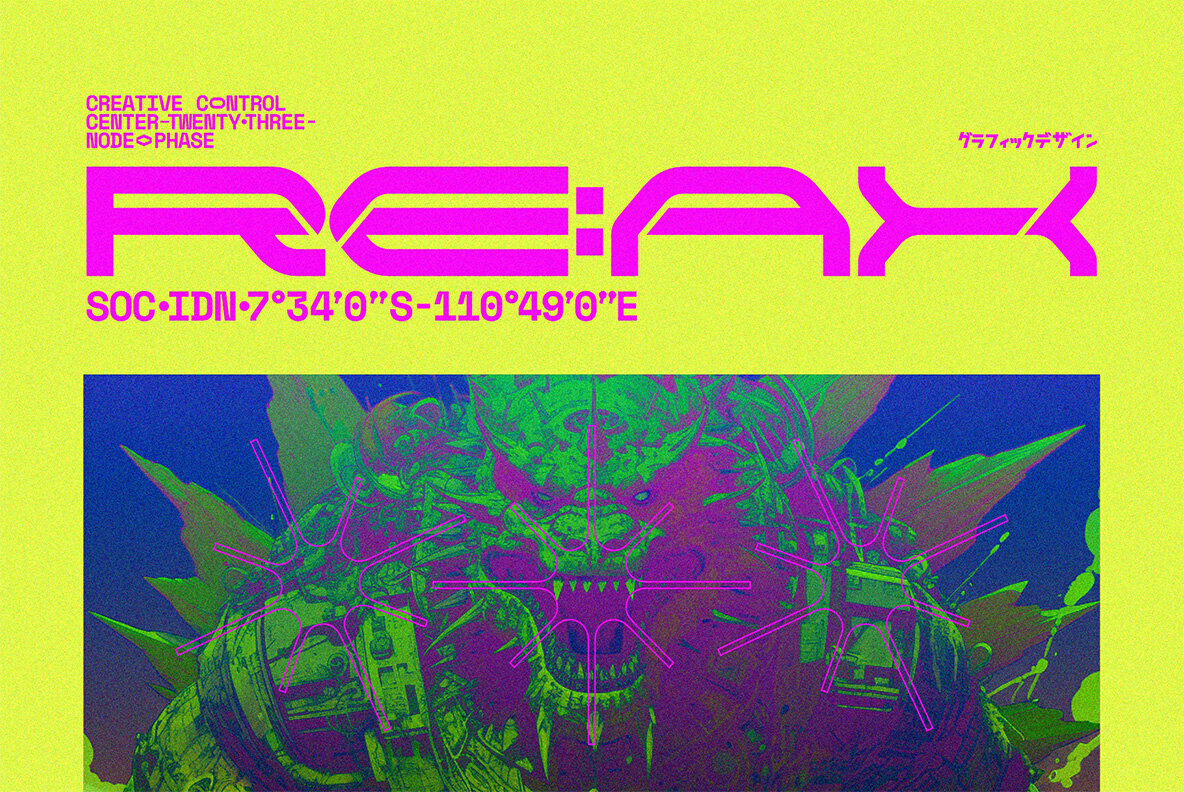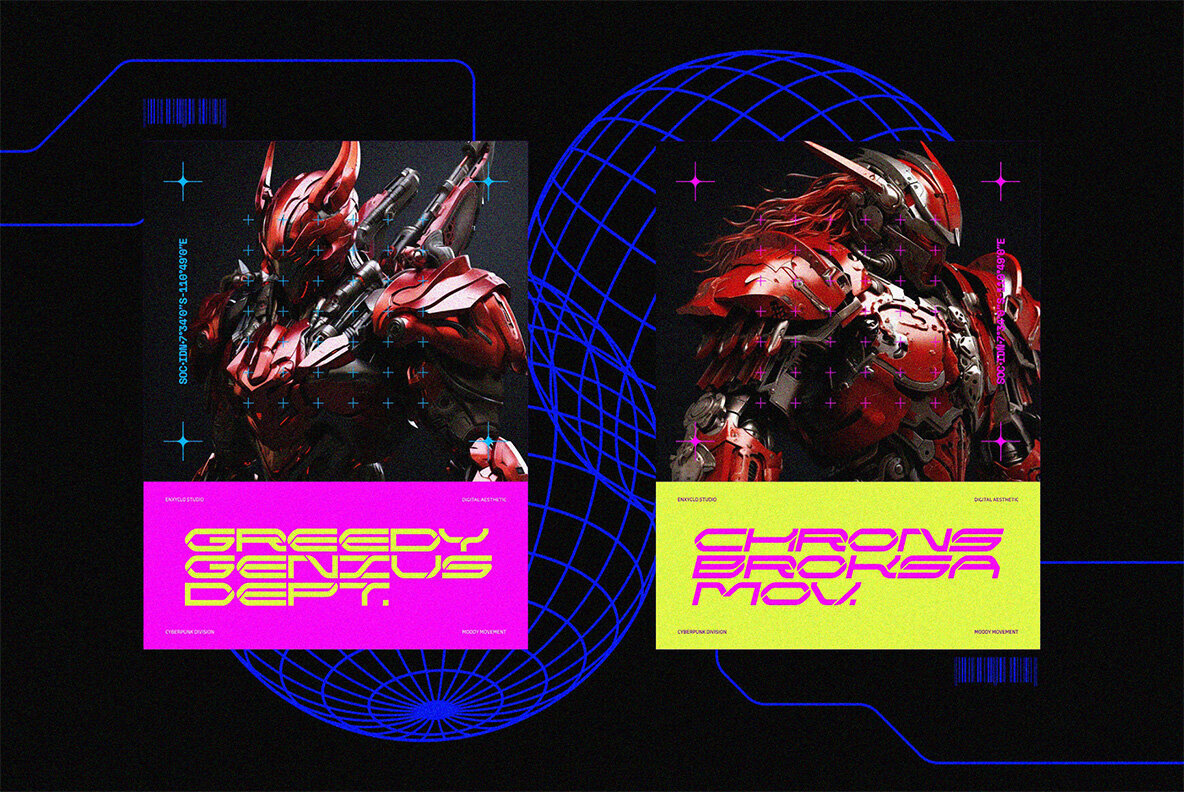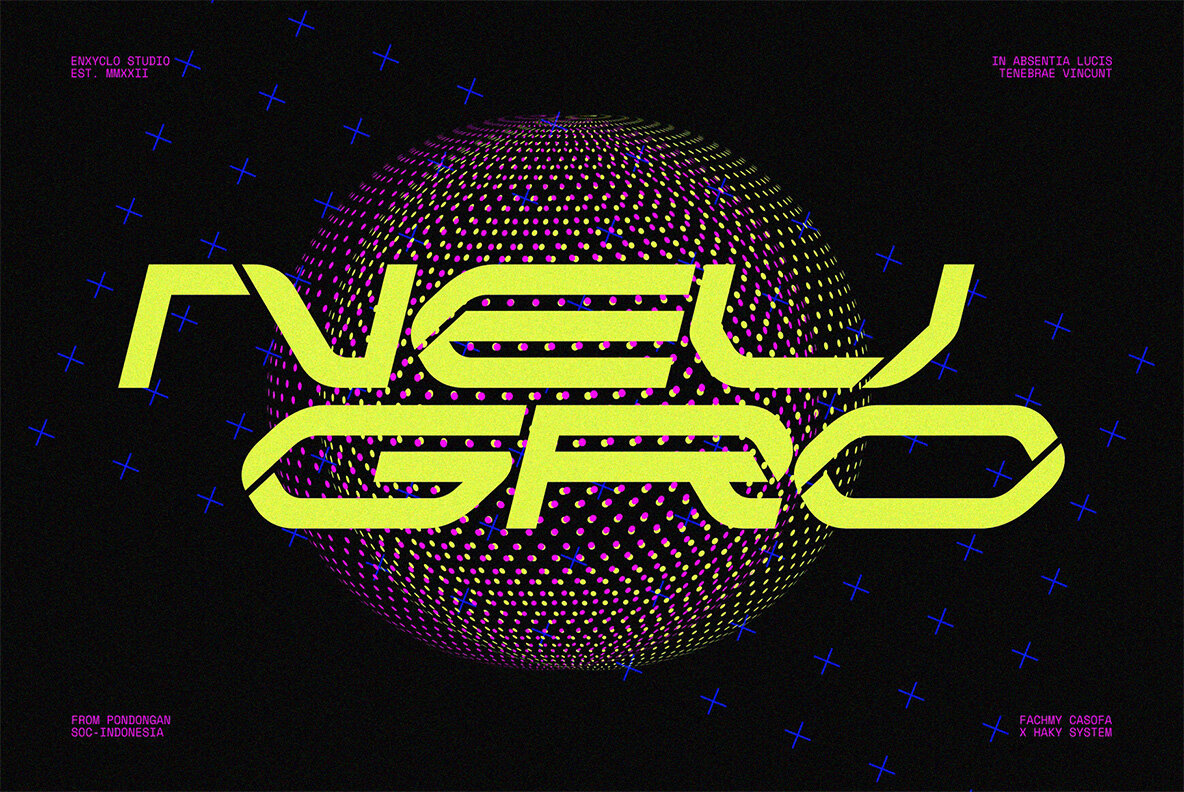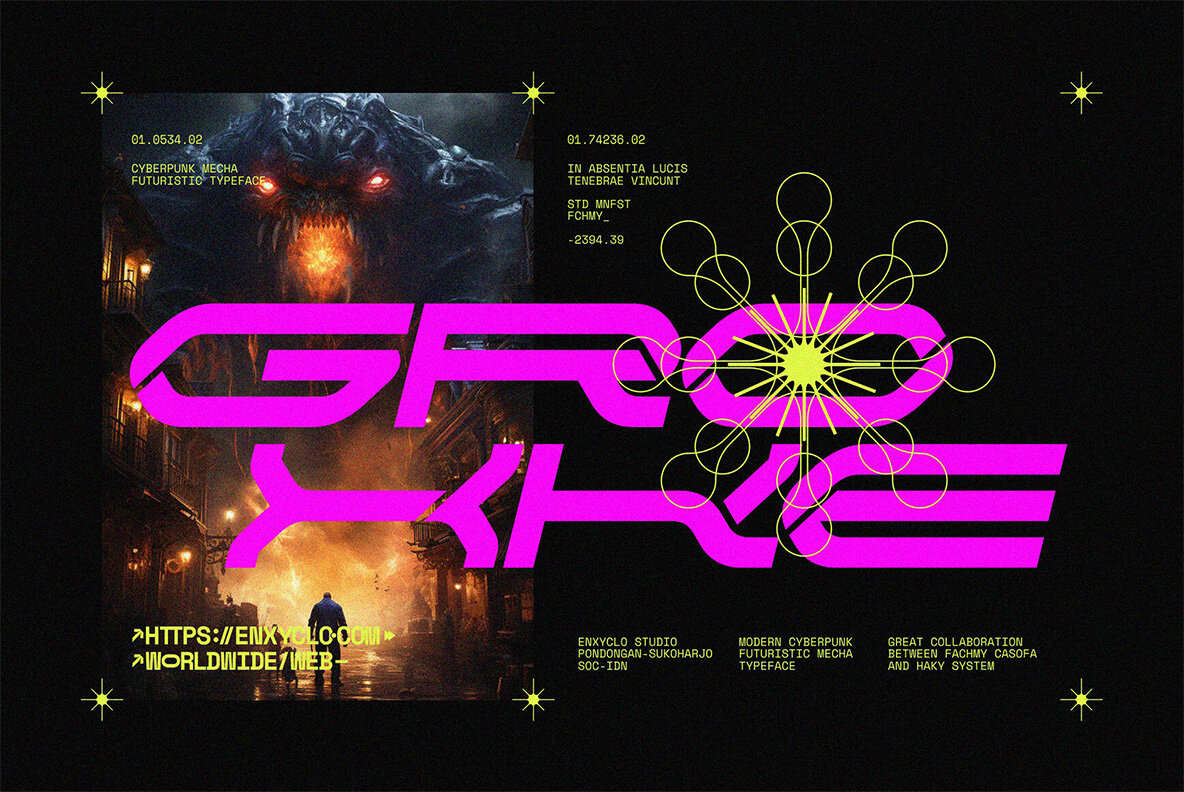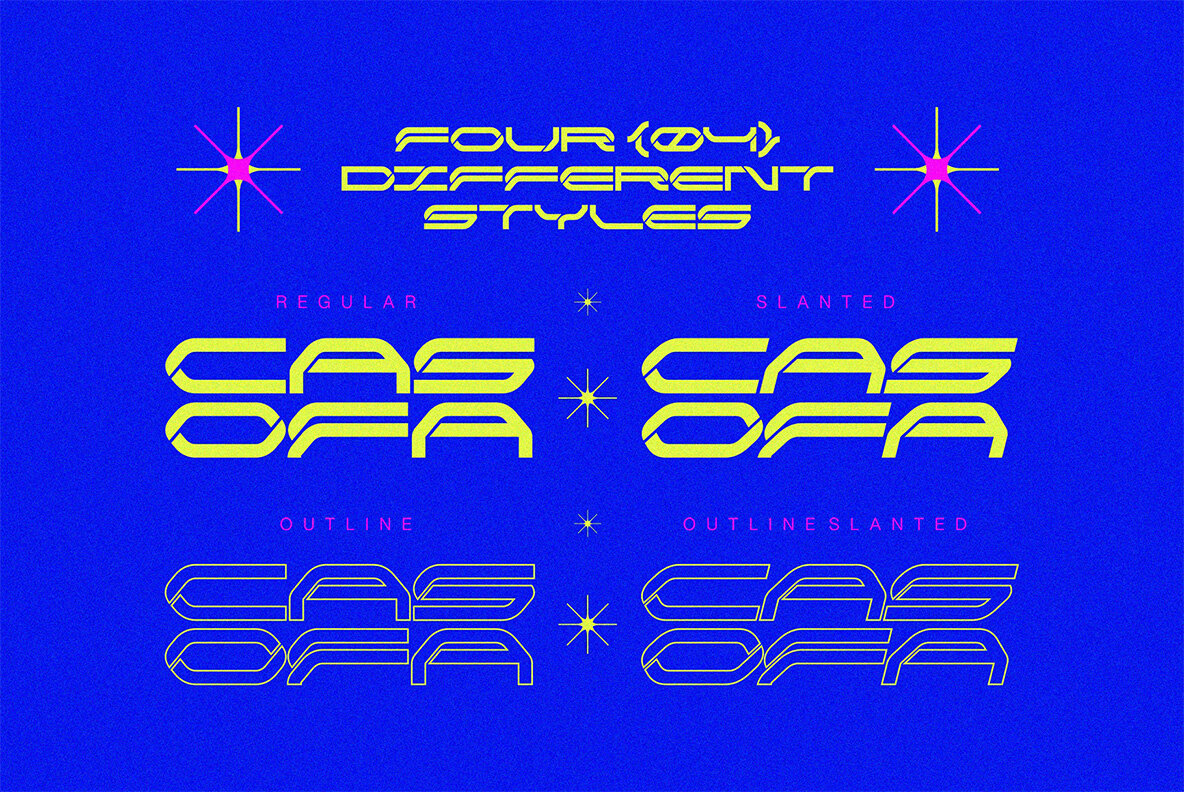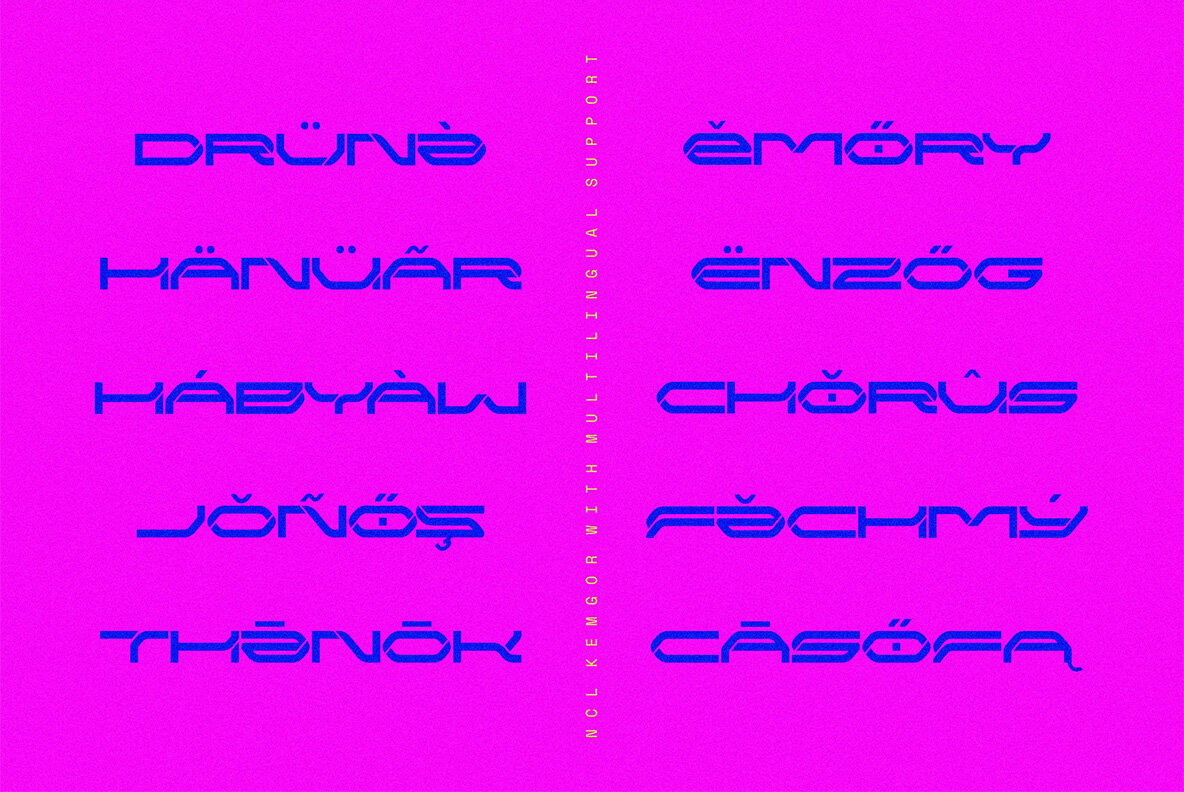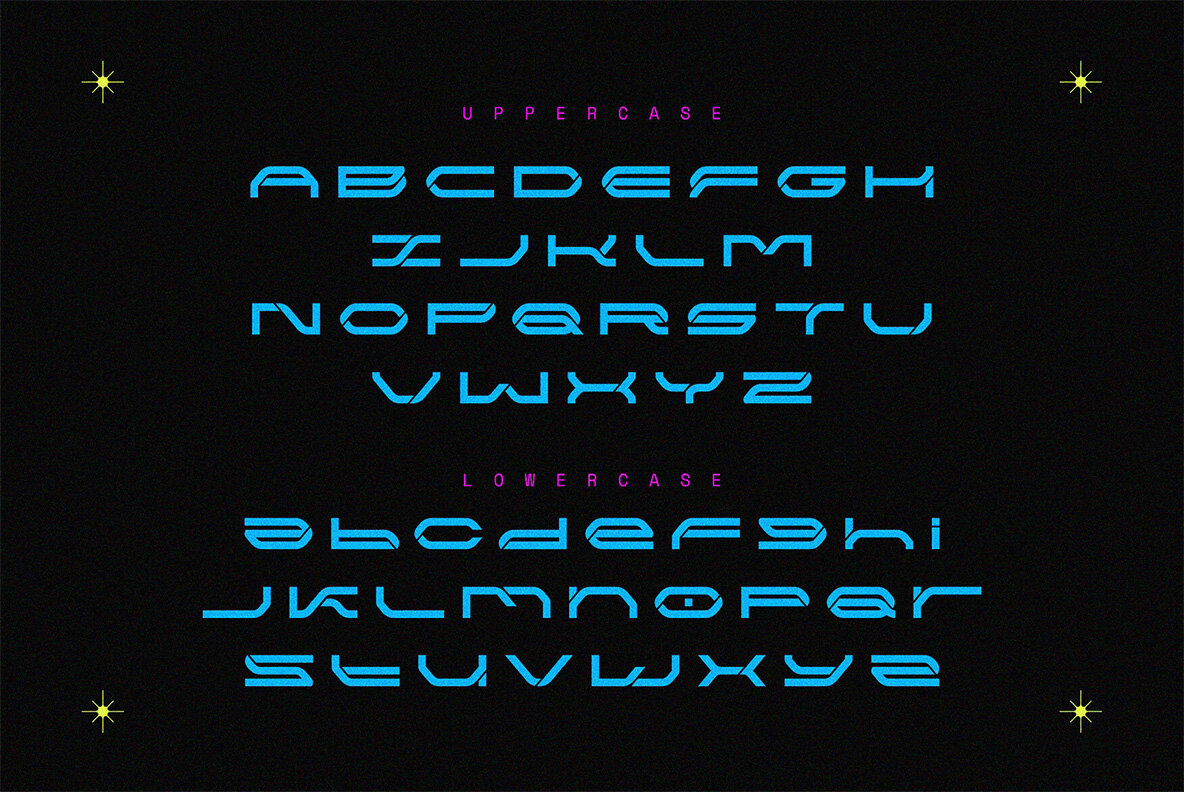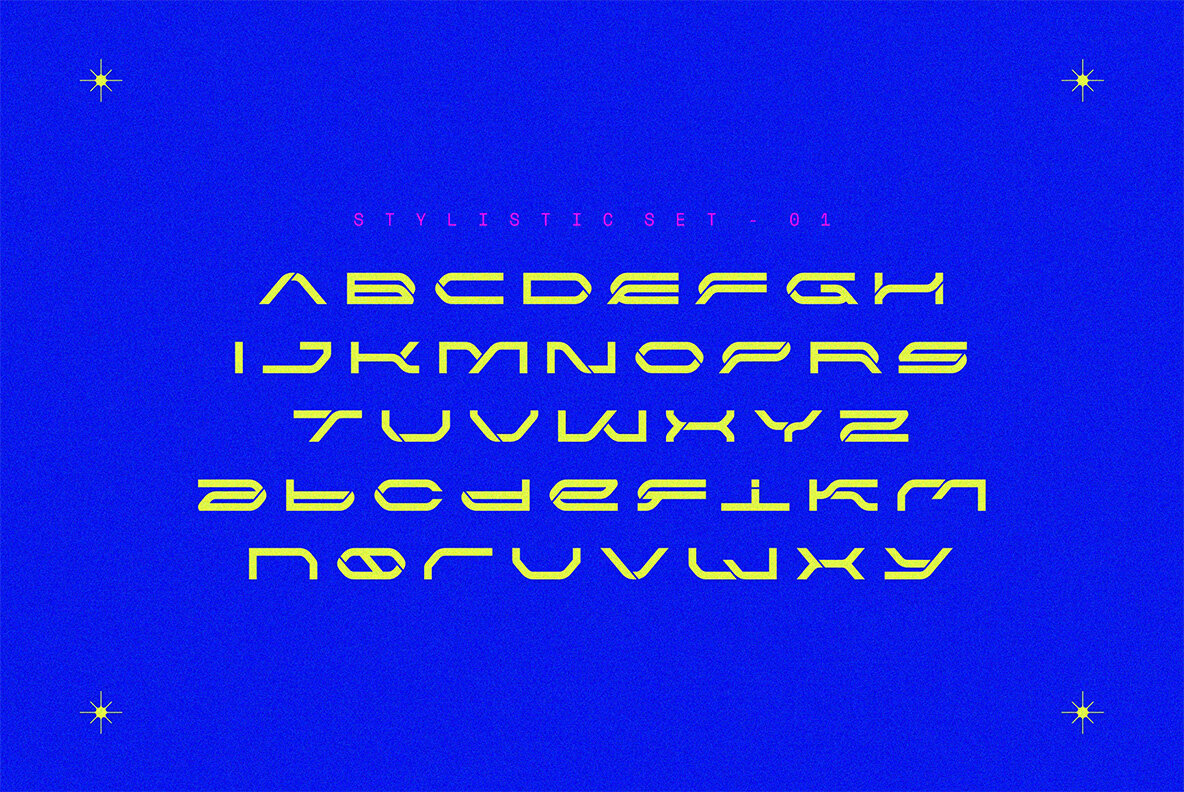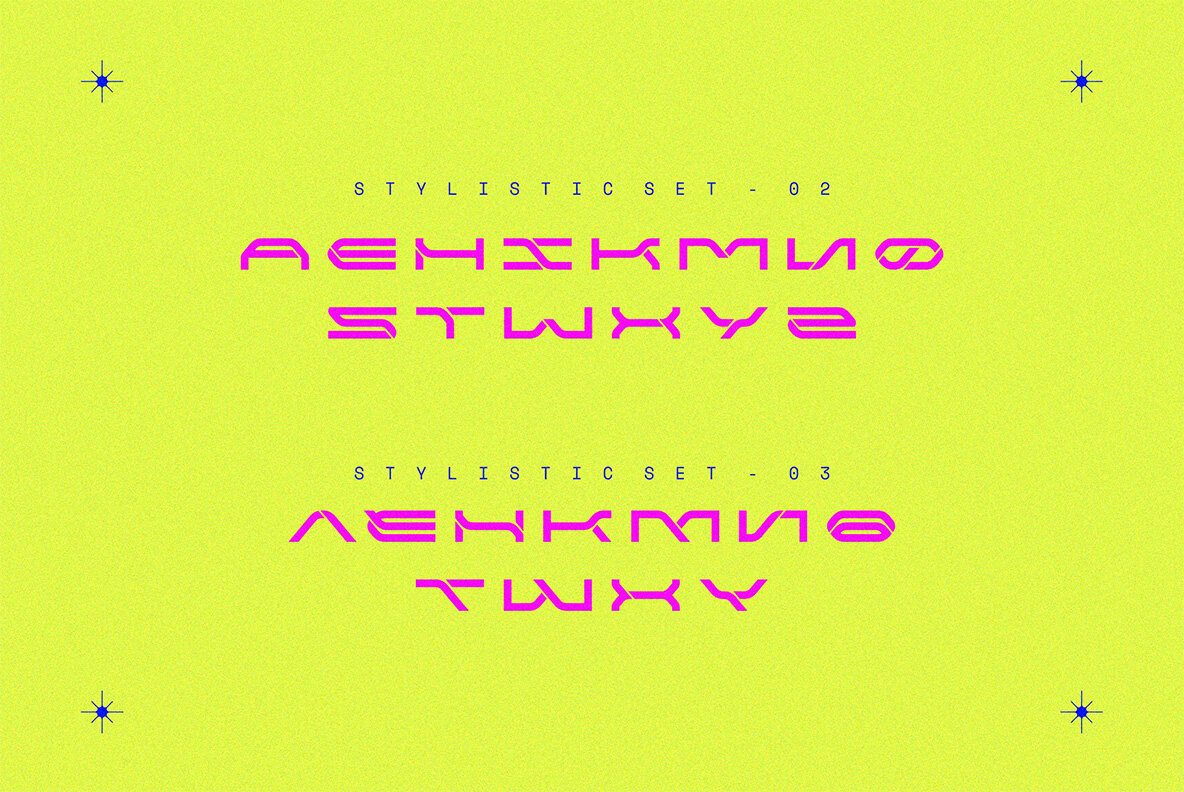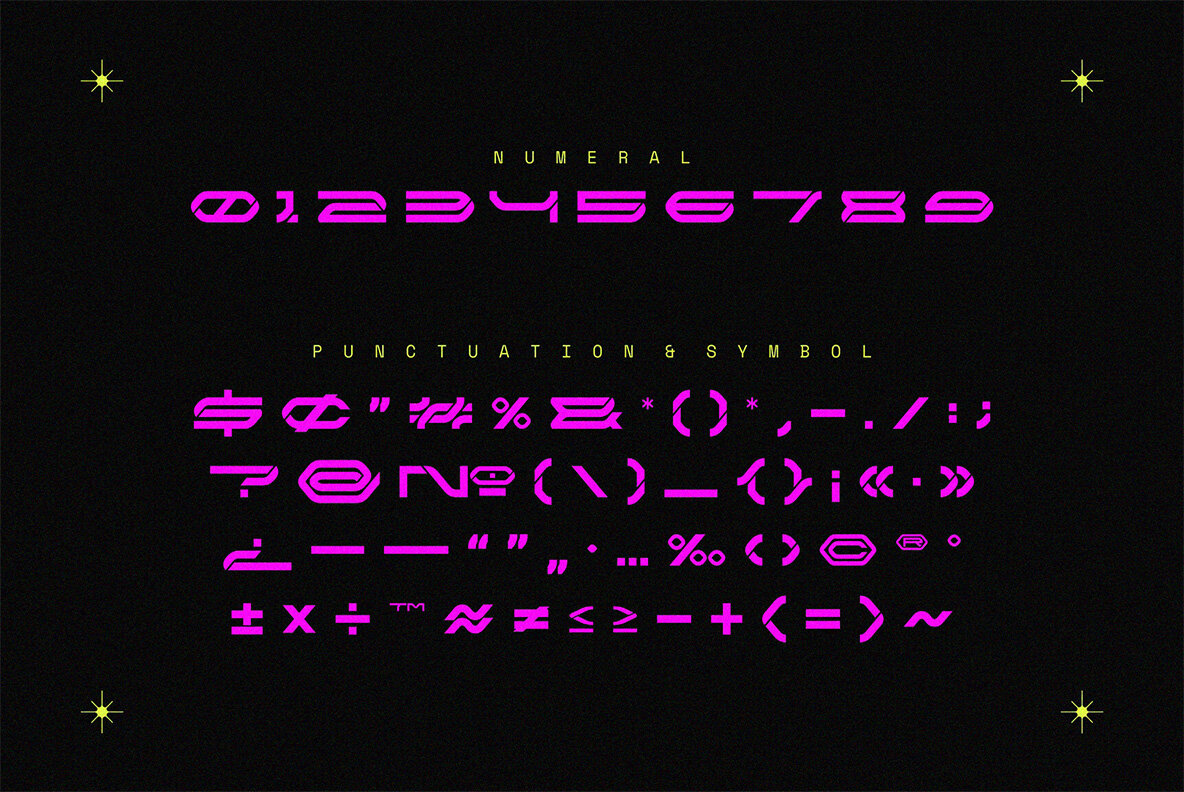
NCL Kemgor Font
NCL Kemgor Regular
NCL Kemgor Outline
NCL Kemgor OutlineSlant
NCL Kemgor Slant
NCL Kemgor is not your ordinary font; it’s a cyberpunk futuristic techno mecha font that takes your creativity to the next level. Its futuristic aesthetics bring a whole new dimension to your designs, making them stand out. Whether you’re working on a website, poster, logo, or any other project, this font adds that extra touch of innovation and sophistication. Features: 4 Style: Regular, Slanted, Outline, Outline Slanted Contains 400 Glyphs for Each Style and 800 Glyphs for Total Uppercase & Lowercase Numeral, Punctuation & Symbols Stylistic Set 1-3 Multilingual Support